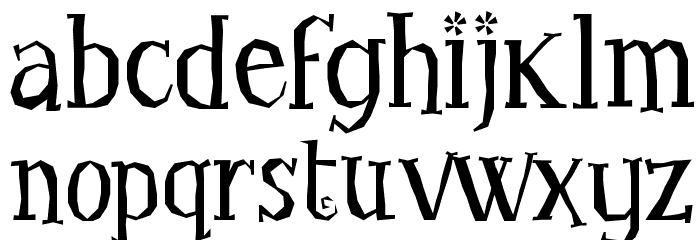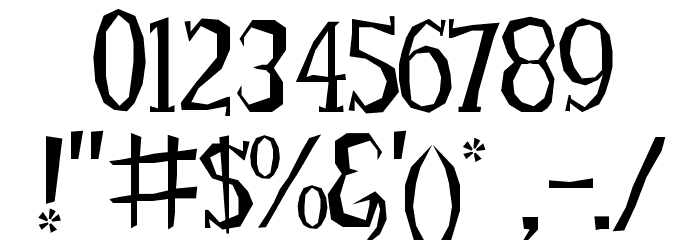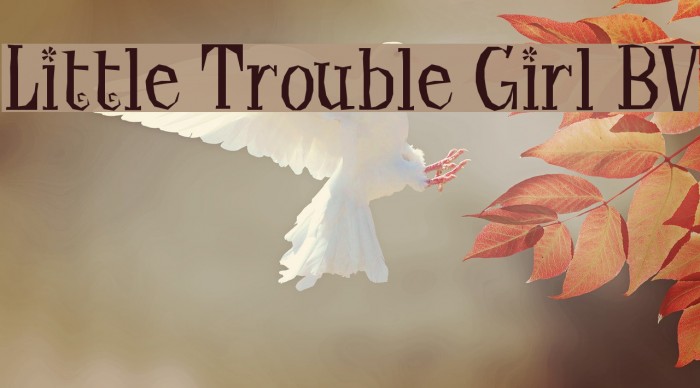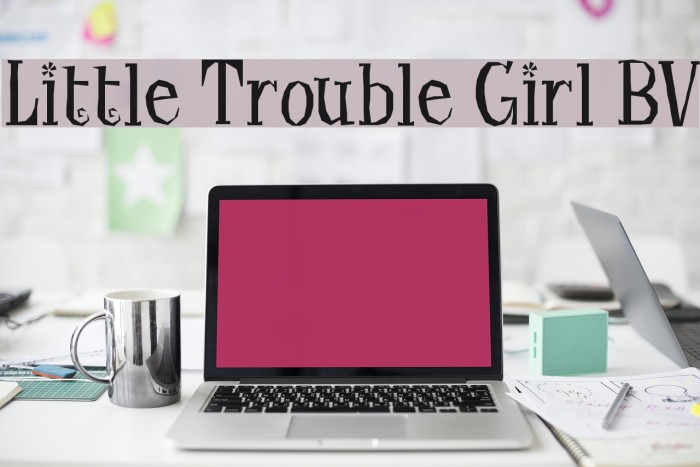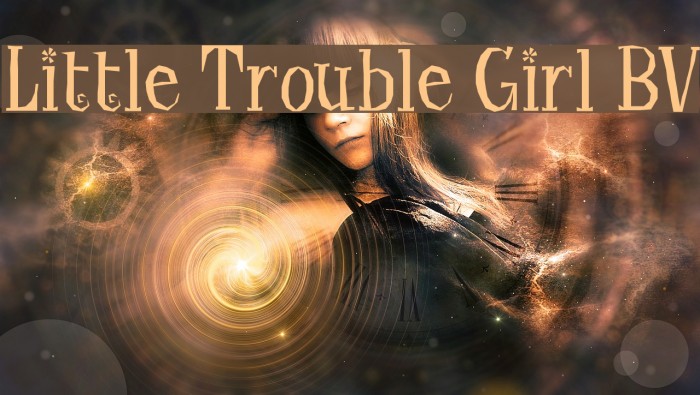
Little Trouble Girl BV Font
This font exudes a playful and slightly rebellious character, with its uneven strokes and quirky design elements. The uppercase letters are bold and angular, giving a sense of strength and individuality. The lowercase letters maintain a consistent style, with some characters featuring unique flourishes that add to the font's charm. Numbers are distinct and maintain the same playful style, ensuring readability while adding a touch of whimsy. Special characters are creatively designed, fitting seamlessly with the overall aesthetic. This font is perfect for projects that require a touch of personality and creativity.
A playful, quirky font with uneven strokes and unique design elements.
- Proposed Projects: Ideal for children's book covers, playful branding, creative posters, and artistic projects.
- Overall Style: Playful, Quirky